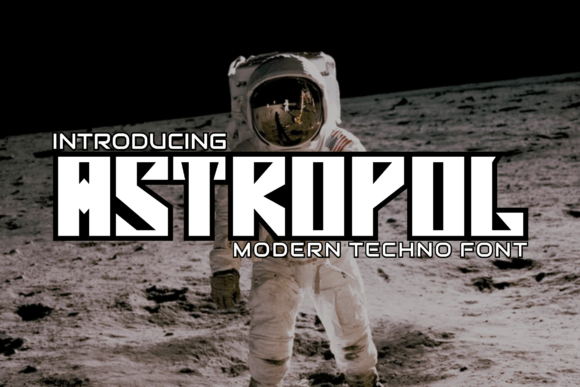
Prepare to be captivated by Astropol, a sans serif masterpiece that exudes beauty, class, elegance, and modernity. Its graceful curves and sharp angles intertwine harmoniously, creating a visual symphony that will elevate your designs to new heights.
Indulge in the versatility of Astropol, a font that effortlessly adapts to a myriad of projects. Whether you're crafting a heartfelt signature, designing exquisite stationery, or seeking the perfect touch for your logo, Astropol promises to deliver. Its timeless charm adds a touch of sophistication to wedding invitations, making your special day even more memorable.
Unleash your creativity with Astropol's ability to transform ordinary typography quotes into breathtaking works of art. Its refined lines lend an air of elegance to magazine covers and book jackets, captivating readers with its undeniable allure. Elevate your website headers and branding with Astropol, ensuring a lasting impression that sets you apart from the crowd.
Let Astropol inspire your fashion designs, adding a touch of sophistication to clothing and accessories. From packaging designs that demand attention to branding that exudes professionalism, Astropol empowers you to create a cohesive and impactful visual identity.
With Astropol at your fingertips, the possibilities are endless. Its versatility knows no bounds, making it the perfect choice for designers seeking a font that embodies both style and functionality. Embrace the beauty of simplicity and experience the transformative power of Astropol today. It's not just a font; it's an invitation to unleash your creativity and make a lasting impression.